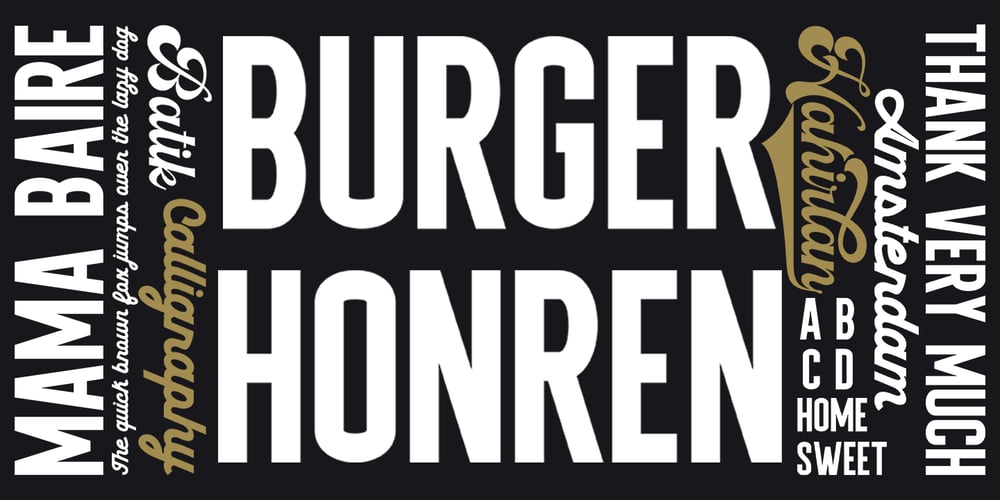
Burger Honren Font Family was designed by M Irvan Syouqi S and published by IRF Lab Studio. Burger Honren contains 17 styles and family package options. Burger Honren is a beautiful collection of fonts, consisting of scripts, monolines and serifs. In this collection you will see fonts in various styles. With their help, many options open up for you to create your projects, both in vintage and modern styles.The script fonts in this collection provide both charisma and charm, crafted with care and complemented by alternatives and strokes. Serif comes in 10 styles and it is possible to choose the required style for your design.This font is PUA encoded which means you can access all the glyphs and sweeps easily!